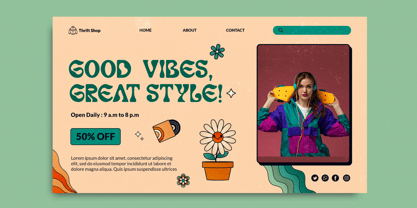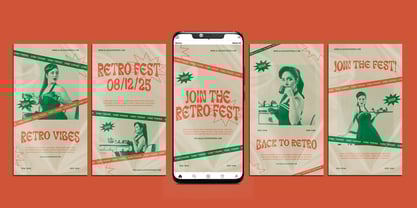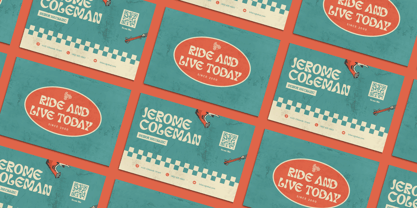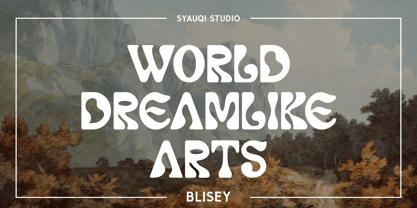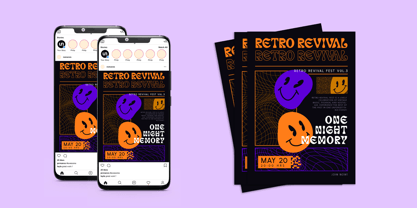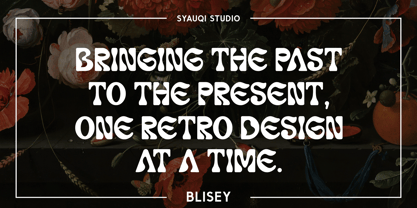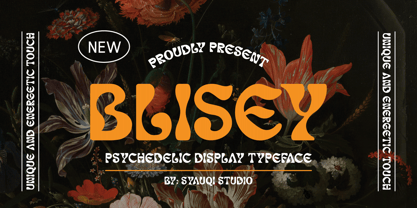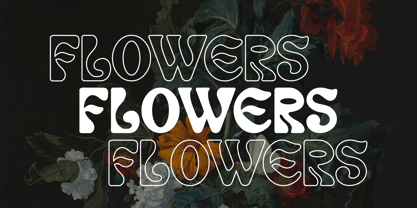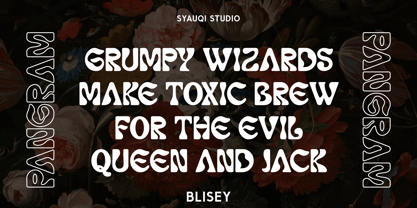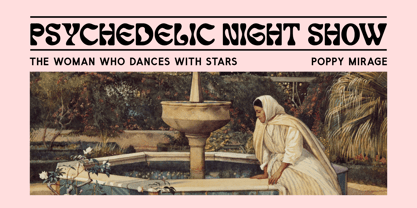
Blisey
Blisey: Psychedelic Retro Display Font for Unique Designs
Blisey is a bold and vibrant display font designed to capture the essence of psychedelic art and retro aesthetics. With its unique curves and dynamic letterforms, Blisey makes an instant impression, perfect for designs that demand attention. Whether you're creating posters, album covers, or any project that celebrates the spirit of the '60s and '70s, this font adds an energetic and nostalgic touch.
Key Features and Advantages of Blisey:
• Psychedelic Style: Inspired by the colorful and bold designs of the retro era, Blisey brings a lively, groovy vibe to your work.
• Versatile Display Font: Ideal for posters, headlines, branding, and other large-scale projects, Blisey ensures that your message stands out.
• Unique Letterforms: Each character is meticulously crafted with flowing curves and expressive shapes, offering a distinctive look.
• Perfect for Retro Designs: If you're working on a vintage-inspired project, Blisey is your go-to font for that perfect psychedelic touch.
• Easy to Use: With clear legibility even at large sizes, Blisey ensures your designs remain impactful and easy to read.
Blisey is the ultimate choice for anyone looking to infuse their designs with a retro, psychedelic flair. Whether for print or digital, this font adds a memorable, eye-catching element to any creative project.